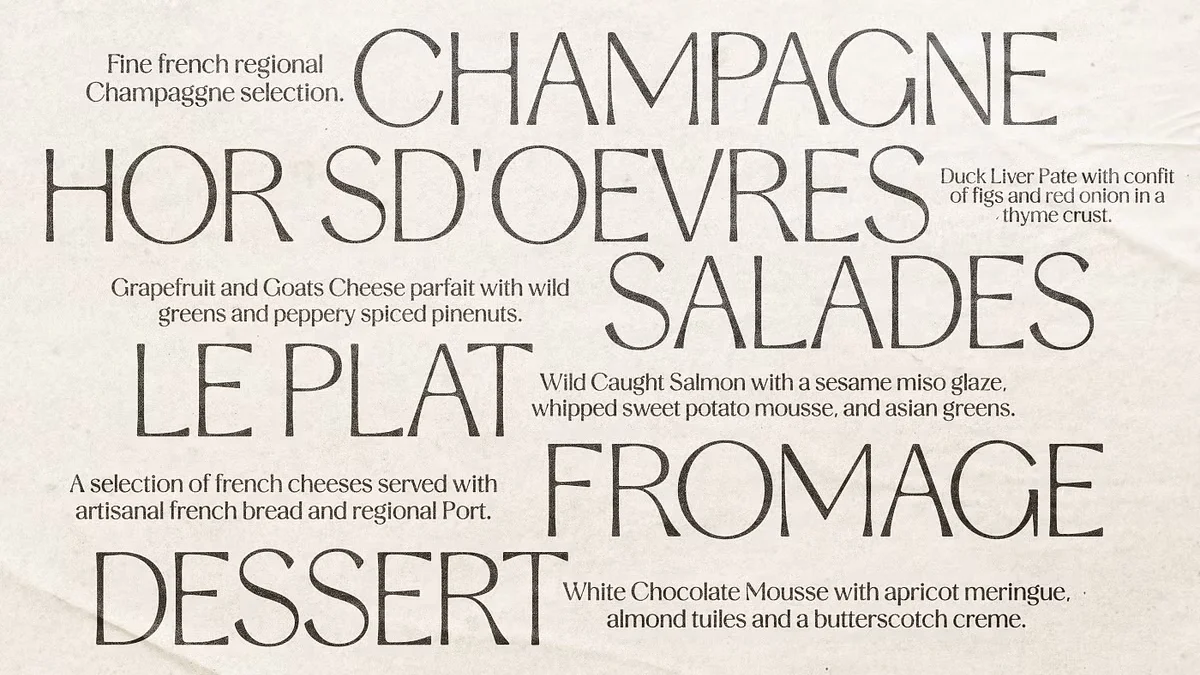
Stylish Aesthetic Font: Nicky Laatz’s Typeface for Designs That Truly Speak
The Stylish Aesthetic font by the talented Nicky Laatz is a chic, bold, and sleek multi-weight typeface designed to make your creative projects pop with personality. Think of a high contrast sans serif, where smooth, graceful curves and sharp, defined angles dance together in perfect harmony. Doesn’t that sound intriguing for your next design challenge?
The Unique Allure of the Stylish Aesthetic Font
So, what’s the secret sauce behind the Stylish Aesthetic font? It’s all in the meticulous details, really. Nicky Laatz has crafted a high contrast sans serif that feels incredibly modern, a true hallmark of contemporary graphic design. But it’s the delightful interplay of forms within the Stylish Aesthetic font that truly sets it apart from other stylish fonts. Imagine smooth, flowing lines – almost liquid in their grace – meeting crisp, decisively angular edges. This isn’t a clash; it’s a perfect, harmonious balance, a visual conversation that captivates the eye. This unique combination is what gives the typeface its signature chic, bold, and wonderfully sleek character. It manages to be both sophisticated for high-end branding and daring enough for edgy editorial work. Quite a feat for a single typeface, wouldn’t you agree? This clever fusion makes it a standout in the world of typography.
Discover the Versatility: Stylish Aesthetic Font’s 9 Weights
Versatility is key in modern graphic design, isn’t it? One of the standout features of the Stylish Aesthetic font is its impressive family of nine weights. This isn’t a one-trick pony; the Stylish Aesthetic font is a comprehensive toolkit for designers. You have a whole spectrum of expression at your fingertips. Starting with an ‘Extra Light’ weight, it whispers sophistication. It’s smooth, it’s delicate – perfect for those moments when you need understated elegance in your typography. Then, as you move through the weights like ‘Light’, ‘Regular’, and ‘Medium’, the Stylish Aesthetic typeface builds character and presence. It becomes more assertive, ready for compelling body text or distinctive subheadings.
Journey further to ‘Bold’ and ‘Extra Bold,’ and this bold typeface takes on a commanding quality, ensuring your message is seen and felt. Finally, you reach the ‘Black’ weight. This one is dramatically angular. It makes an undeniable statement. It demands attention, ideal for impactful headlines and attention-grabbing calls to action. With everything in between, this versatile font family truly has you covered for any design challenge you might throw at it. Could this expansive range within the Stylish Aesthetic font be exactly what your creative toolkit needs to tackle diverse projects?
Meet the Creator: Nicky Laatz and Her Vision
Behind every great font, there’s a visionary designer. In this case, it’s the renowned Nicky Laatz. Many of you in the graphic design community might already be familiar with her distinctive and popular font creations, often celebrated as some of the best Nicky Laatz fonts available. Nicky has a clear knack for producing typefaces that are not only beautiful but also incredibly usable and aligned with current design trends.
With the Stylish Aesthetic typeface, she continues this tradition of excellence. Her approach often blends contemporary design trends with timeless typographic principles. This careful synthesis results in fonts that feel fresh and modern yet possess a lasting appeal. It seems her goal with the Stylish Aesthetic font was to offer designers a powerful tool that is both highly expressive and wonderfully adaptable. A tool that allows your brand’s unique voice to shine through with clarity, confidence, and undeniable style. Don’t you think she’s hit the mark with this elegant font?
Elevate Your Designs: Applications of the Stylish Aesthetic Font
Now, let’s talk about where the Stylish Aesthetic font can truly shine. Where can you use this chic typeface to make an undeniable impact in your graphic design projects? The possibilities are vast, which is part of the beauty of such a versatile font family. Think about branding, for instance. Are you crafting a memorable logo that needs to be both modern and elegant? The bold weights of the Stylish Aesthetic typeface could be perfect for creating a strong visual identity. Building a sophisticated brand identity that speaks volumes about quality and style? Its comprehensive range offers consistency with an unmistakable flair, making it one of the top aesthetic fonts for such purposes.
It’s also a fantastic choice for editorial design. Imagine magazine layouts or website headlines looking sharp, inviting, and effortlessly stylish with the Stylish Aesthetic font. What about marketing materials? Posters, social media graphics, and brochures will undoubtedly stand out from the crowd, imbued with a professional yet fashionable aesthetic. Even for more personal touches, like chic fonts for wedding invitations or high-end event stationery, this font brings an air of refined elegance. Can you already picture the Stylish Aesthetic typeface transforming your next project from good to absolutely unforgettable?
Global Reach: Multi-Language Support
In our interconnected world, reaching a diverse audience is more important than ever for effective communication. Good news on this front! The Stylish Aesthetic font is ready for global prime time. Nicky Laatz has thoughtfully ensured that extensive language support is built right in. We’re talking about compatibility with Danish, English, Filipino, French, German, Indonesian, Italian, Low German, Luo, Luxembourgish, Norwegian Bokmål, Norwegian Nynorsk, Portuguese, Spanish, Swedish, and Swiss German.
That’s quite an impressive list, isn’t it? This broad language compatibility means your designs can maintain their stylish integrity and typographic consistency across different regions and audiences. It’s an incredibly practical feature that adds immense value, allowing your carefully crafted message to resonate authentically, no matter the language. How crucial is multilingual support for your own design work and the clients you serve?